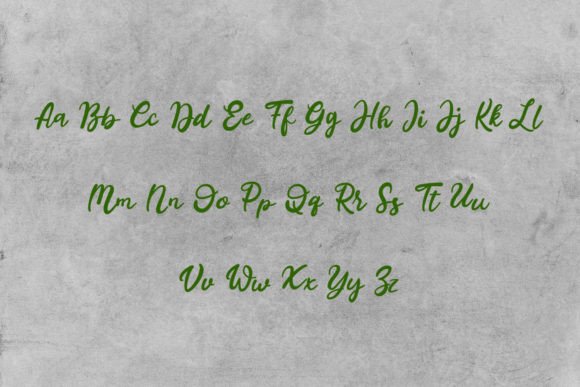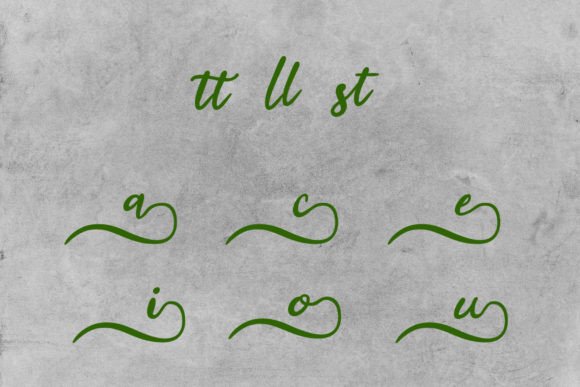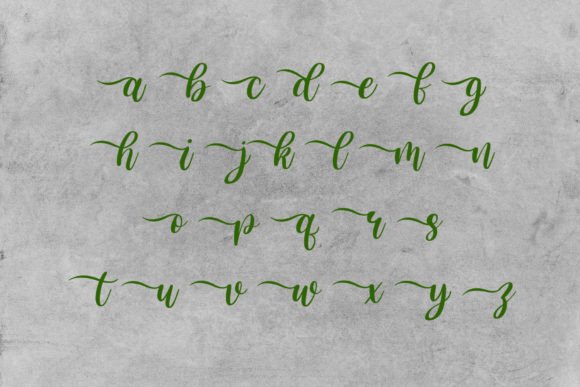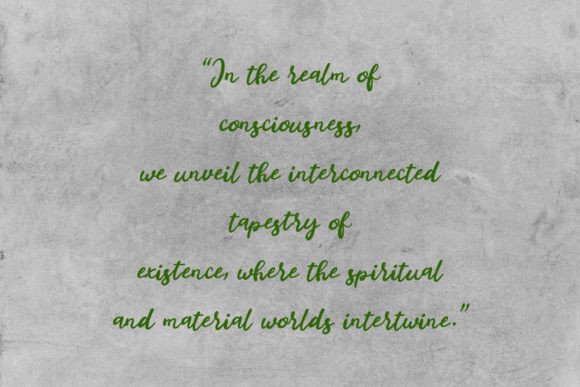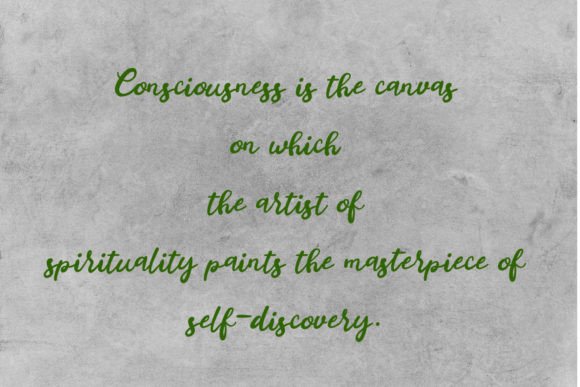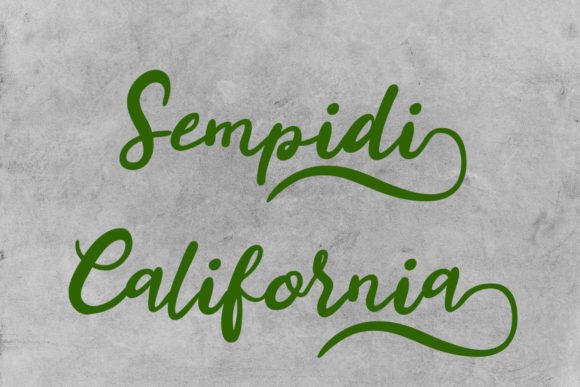
Introducing “Brightside-Brush Font”: Ignite Creativity and Captivate Audiences
Are you tired of bland and uninspiring typography? Do you want to infuse your designs with personality and flair? Look no further! Say hello to the “Brightside-Brush Font,” your ultimate tool for unlocking creativity and making a memorable impact.
Why Choose Brightside-Brush Font?
The Brightside-Brush Font is a game-changer for designers, marketers, and creative enthusiasts alike. Here are just a few reasons why you need to add it to your toolkit:
Distinctive Appeal
The Brightside-Brush Font exudes character and charm. Its handcrafted brush strokes add an authentic, human touch to your designs, setting you apart from the ordinary. With this font, you can add a dash of personality to your typography and make your designs truly unforgettable.
Versatile Powerhouse
Whether you’re a graphic designer, marketer, or creative enthusiast, this font adapts to your every need. From logos to posters, web banners to social media posts, it’s your all-in-one solution. The Brightside-Brush Font is the perfect choice for any design project, big or small.
Seamless Integration
Command Attention
Bold, eye-catching typography is just a few clicks away. The Brightside-Brush Font is designed to command attention and make a lasting impression on your audience. Whether you’re promoting a product, service, or cause, this font helps you stand out in a crowded marketplace and leave a lasting impact.
What Makes Brightside-Brush Font So Special?
The Brightside-Brush Font is more than just a typography tool – it’s an experience. Here are some of the key features that make it so special:
- Handcrafted with love: Each brush stroke is carefully crafted to give the font a unique, human touch.
- High-quality design: The font is designed with precision and attention to detail, ensuring crisp and clear typography.
- Extensive character set: The Brightside-Brush Font includes a wide range of characters, symbols, and glyphs, giving you endless creative possibilities.
- Easy to use: The font is designed to be user-friendly, making it easy to integrate into your design workflow.
How to Use Brightside-Brush Font in Your Designs
Ready to unleash your creativity with Brightside-Brush Font? Here are some design ideas to get you started:
Create stunning logos
Use the Brightside-Brush Font to create unique and memorable logos that capture the essence of your brand.
Design eye-catching posters
Make a bold statement with eye-catching posters that showcase your message in a creative and compelling way.
Craft engaging social media posts
Use the Brightside-Brush Font to create engaging social media posts that stand out in crowded feeds.
Develop captivating web banners
Grab attention and drive clicks with web banners that showcase your message in a clear and compelling way.
| Font Name | Brightside Font |
| Author | anomali.bisu |